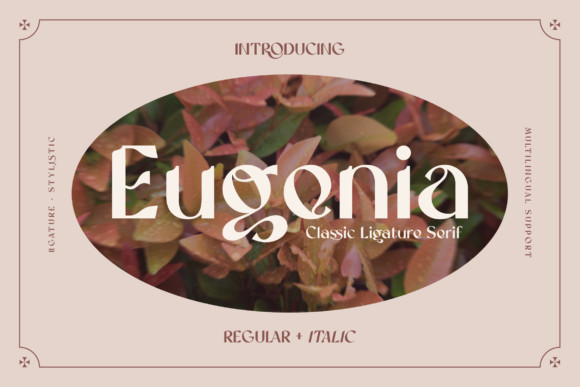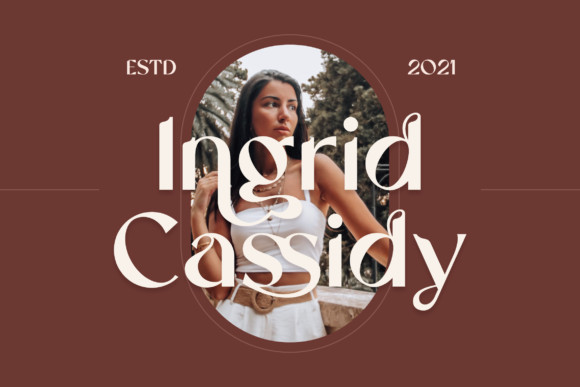
Eugenia Font
Eugenia is an elegant and uniquely shaped display font. It is defined by smooth curves and is perfect for fashion branding or editorial designs. Add it confidently to your projects, and you will love the results.